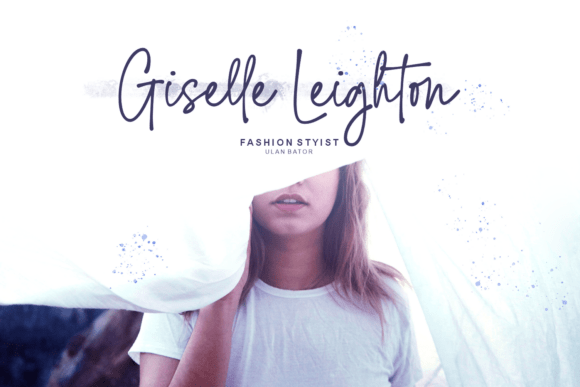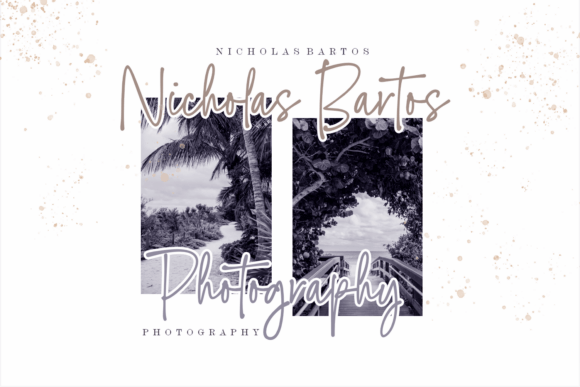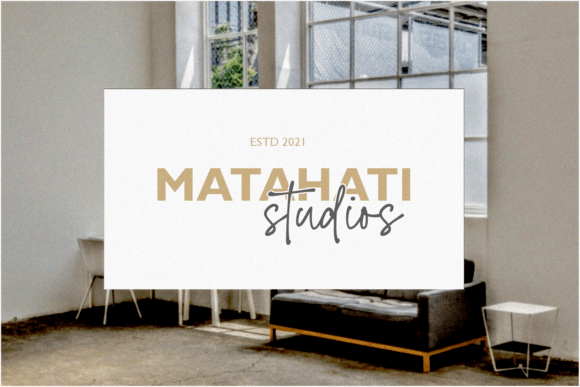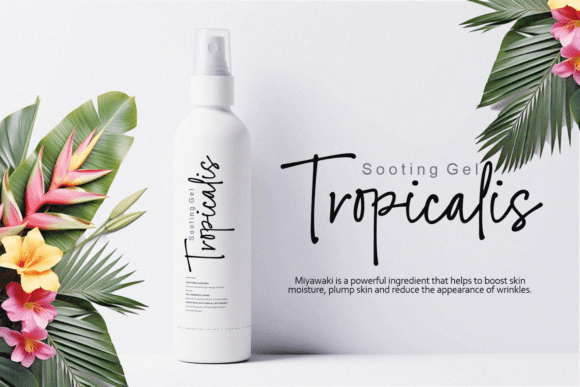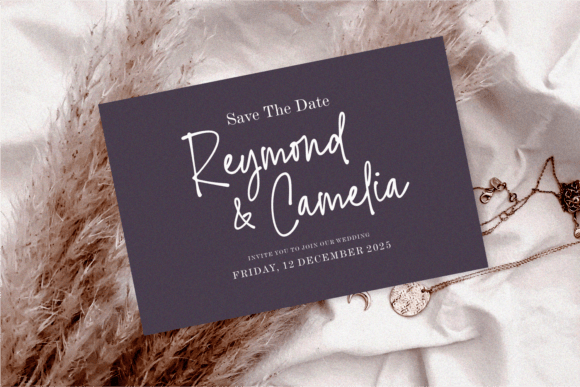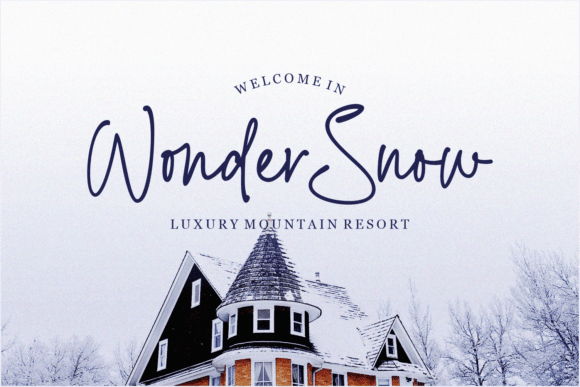
Introducing the Bastidas Font: Elevate Your Design with a Touch of Handcrafted Elegance
In the world of typography, few fonts manage to capture the essence of handcrafted elegance while offering versatility for a wide range of design projects. The Bastidas Font is one such gem that has been making waves in the design community. With its sleek, contemporary look and distinctive handcrafted quality, Bastidas is quickly becoming a must-have for designers and crafters looking to add a unique touch to their work.
The Allure of Bastidas: A Handcrafted Quality
What sets Bastidas apart from your typical handwritten style fonts is its unique, handcrafted quality. This font is not just a collection of letters and symbols; it’s an expression of artistry and craftsmanship. Each character, from the upper and lowercase Basic Characters to the Numbers, Marks, and Punctuation, has been carefully designed to exude a sense of elegance and sophistication.
Whether you’re working on a logo, signature, label, packaging, or even blog headers, Bastidas brings a level of refinement and class that can elevate your design from ordinary to extraordinary. Its attention-grabbing and utterly captivating presentation of text makes it perfect for projects where you want to leave a lasting impression.
Seamless Navigation with Comprehensive Character Set
One of the key features that make Bastidas incredibly user-friendly is its comprehensive character set. The font comes with upper and lowercase Basic Characters, Numbers, Marks, and Punctuation, ensuring that you have everything you need at your disposal. This extensive character set allows for seamless navigation and flexibility, making it easy to incorporate Bastidas into your design workflow.
Double Letters Ligature and Swashes: The Standout Features
Bastidas doesn’t just stop at being a beautifully designed font; it also offers some standout features that can take your designs to the next level. The Double Letters Ligature and beautiful Swashes that come standard with Bastidas add an extra layer of creativity and flair to your typography.
The Double Letters Ligature feature allows for a more dynamic and connected look, perfect for creating visually appealing text that flows well. Meanwhile, the Swashes add a decorative touch that can be used to embellish your designs, making them more engaging and eye-catching.
Bringing Bastidas to Your Design Project
Incorporating Bastidas into your design project is easier than you think. With its user-friendly features and extensive character set, you can quickly get started with adding a touch of elegance and sophistication to your work. Whether you’re a professional designer or a crafter looking to add a personal touch to your projects, Bastidas is the perfect choice.
Imagine being able to create stunning logos, elegant signatures, eye-catching labels, and captivating blog headers with ease. With Bastidas, you can experience the joy of designing with a font that truly understands the importance of aesthetics and functionality.
Experience Love at First Type
The moment you start typing with Bastidas, you’ll know why it’s quickly becoming a favorite among designers and crafters. The font’s unique blend of handcrafted elegance and modern sophistication makes it a joy to work with. You’ll find yourself falling in love with the way Bastidas presents text – attention-grabbing, captivating, and utterly mesmerizing.
In a world where typography plays a crucial role in design, Bastidas offers a refreshing take on handwritten style fonts. Its distinctive character, comprehensive features, and ease of use make it an indispensable tool for anyone looking to elevate their design work.
| Author | Nun Creatype |
The Bastidas Font is more than just a collection of characters; it’s a design experience. With its sleek, contemporary look, handcrafted quality, and extensive features, Bastidas is the perfect addition to any design project. Whether you’re looking to create stunning logos, elegant signatures, or captivating blog headers, Bastidas has got you covered.
So why wait? Bring a dash of Bastidas to your design project and experience the magic of working with a truly exceptional font. With Bastidas, you can expect to create designs that are not only visually appealing but also uniquely captivating. It’s time to fall in love with typography all over again – at first type.